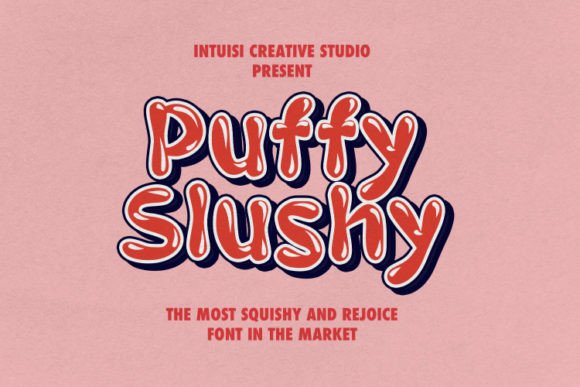
Exploring the Playful Personality of Puffy Slushy
Imagine a typeface that instantly injects a sense of joy and whimsy into any design project. Puffy Slushy is a fun and cheerful display font that does exactly that, bringing a unique blend of personality and versatility to the creative table. A little bit quirky, this font looks incredibly adept in a wide variety of contexts, making it a compelling choice for designers seeking to break away from the mundane. Its soft, rounded forms and playful curves evoke a sense of friendliness and approachability, perfect for projects that aim to connect with audiences on a more personal and lighthearted level.
The Visual Appeal and Design Characteristics
At its core, Puffy Slushy is a premium font designed to be a standout display typeface. Its letterforms feature soft, inflated shapes that give it a distinct "puffy" quality, reminiscent of friendly characters or sweet treats. Unlike a rigid sans serif font or a formal serif font, Puffy Slushy embraces a more organic and playful aesthetic. This creative font is crafted with attention to detail, ensuring each character maintains its charm across different sizes. While it's not a script font or handwritten font, its casual yet polished look fills a unique niche in modern typography, offering a fresh alternative for logo design and brand identity projects that need to feel approachable and modern.
Creative Applications Across Design Projects
The true strength of a versatile display font like Puffy Slushy lies in its adaptability. Its cheerful demeanor makes it suitable for a wide array of applications where a touch of personality is desired.
- Branding and Logos: Ideal for businesses targeting a younger demographic or those in the food, entertainment, or lifestyle sectors. It helps create a brand identity that feels fun and memorable.
- Packaging Design: Makes products pop on the shelf, especially for snacks, beverages, children's items, or artisanal goods where a friendly vibe is key.
- Poster and Editorial Design: Catches the eye in poster design for events, festivals, or book titles, and can add a playful header to editorial design layouts in magazines.
- Digital and Social Media: Grabs attention in social media graphics, website banners, and headers, making digital content more engaging and shareable.
- Invitations and Merchandise: Perfect for party invitations, greeting cards, t-shirts, and other merchandise where a lighthearted, custom feel is appreciated.
Practical Tips for Effective Implementation
Using a characterful font effectively requires thoughtful application. First, consider readability and scale. Puffy Slushy shines as a headline or accent font, but for body text, pairing it with a clean, neutral typeface ensures clarity. Establishing a clear visual hierarchy is crucial—use Puffy Slushy for main titles or key phrases to draw the eye, then support it with simpler fonts for longer paragraphs. When it comes to font pairing, try combining it with a geometric sans serif font for a modern contrast, or a simple serif font for a more balanced look. Always test your typography in context to maintain consistency across your web design or print materials.
Making an Informed Choice for Your Project
Before integrating any new design asset into your workflow, it's wise to evaluate its fit. Ask yourself: Does the playful, rounded style of Puffy Slushy align with my project's tone and target audience? For formal or highly technical content, a different typeface might be more appropriate. However, for projects aiming to convey warmth, creativity, or fun, it could be the perfect solution. Always check the licensing terms for your intended use, whether for personal projects or commercial work, to ensure compliance. A well-chosen font does more than display words; it communicates a feeling and helps shape the viewer's perception of your brand or message.
Ultimately, selecting a typeface is about finding the right voice for your design. A font like Puffy Slushy offers a distinctive voice that can elevate projects from ordinary to exceptional. By understanding its strengths and applying it with purpose, you can harness its cheerful energy to create designs that are not only visually appealing but also effectively resonate with your audience, leaving a lasting and positive impression.